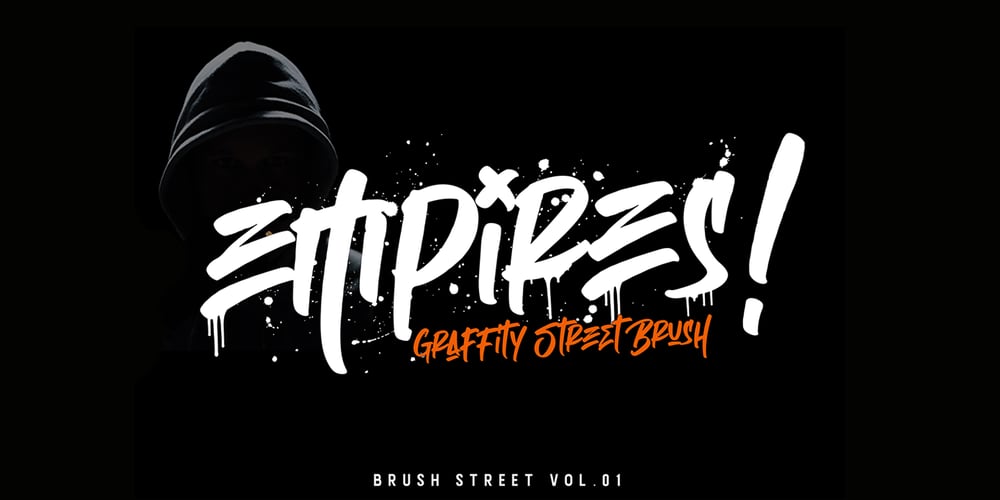
Empires Font Family was designed by Malik Wisnu and published by MlkWsn. Empires contains 2 styles and family package options. Empires is a supercharged, street-wise brush font bursting with energy, Empires is ideal for logos, apparel,T-shirt,Hoodie, quotes, product packaging, or anything which needs a typographic turbo-boost. Empires Swash – Need a cool drip on your text or a splash of paint? This font set has you covered. Type any letter a-z using this font, and you’ll get a unique swash to accompany the font